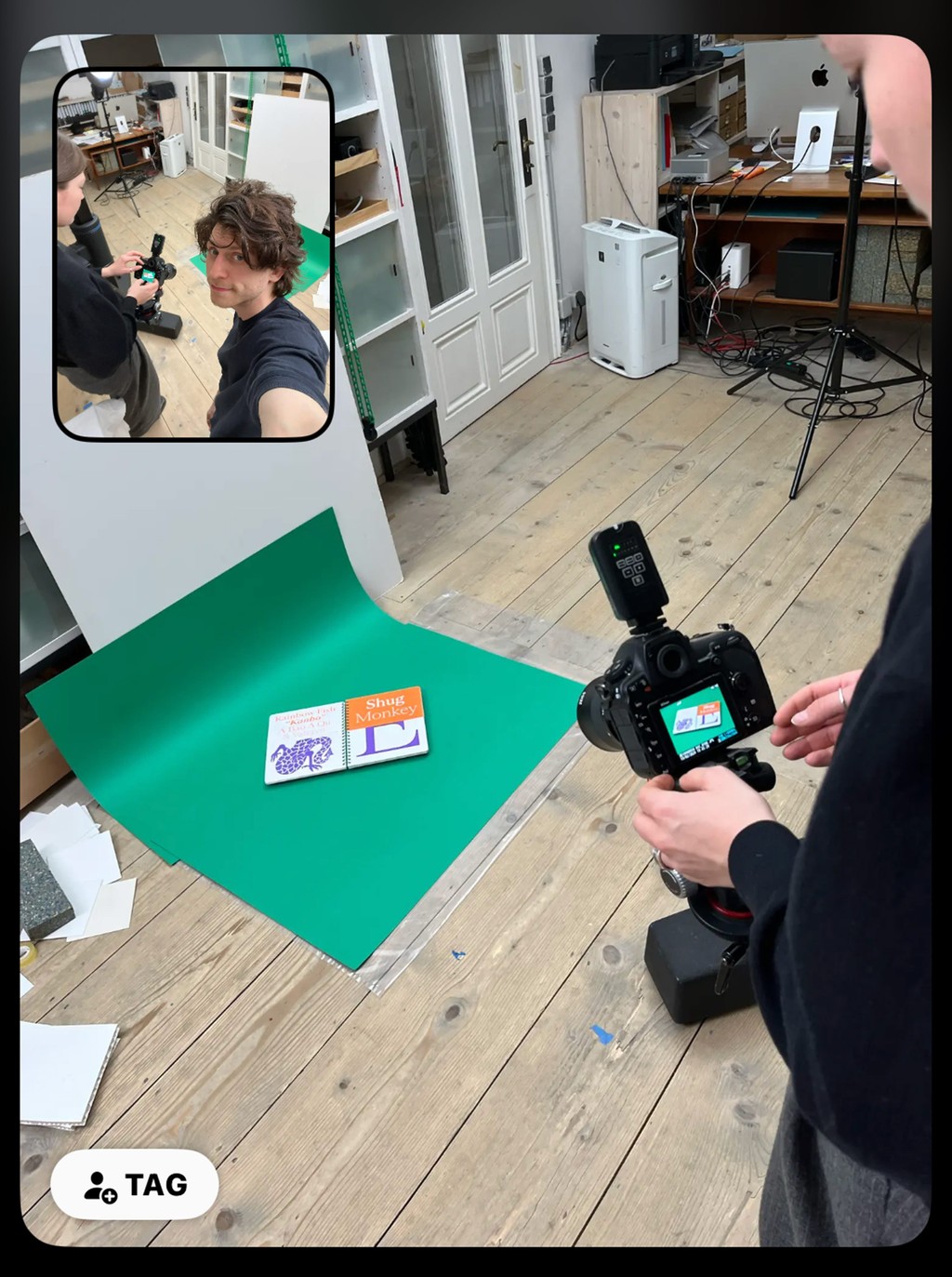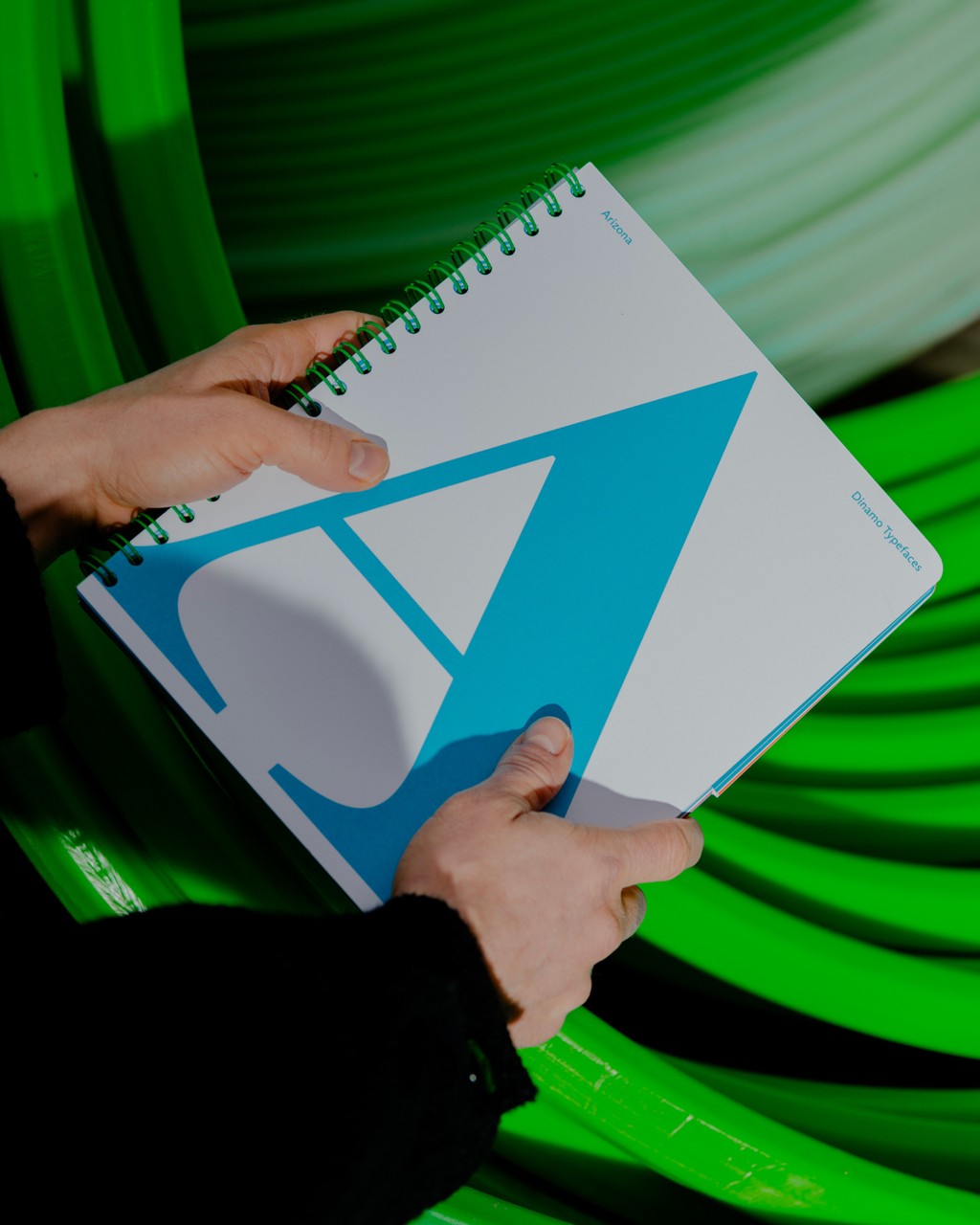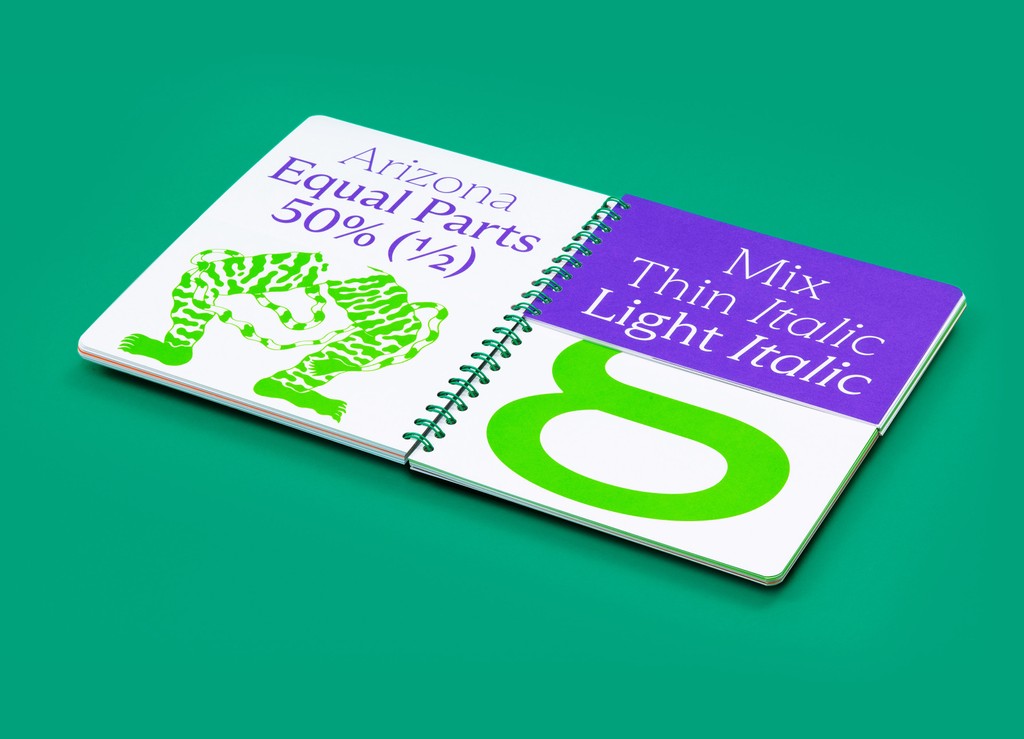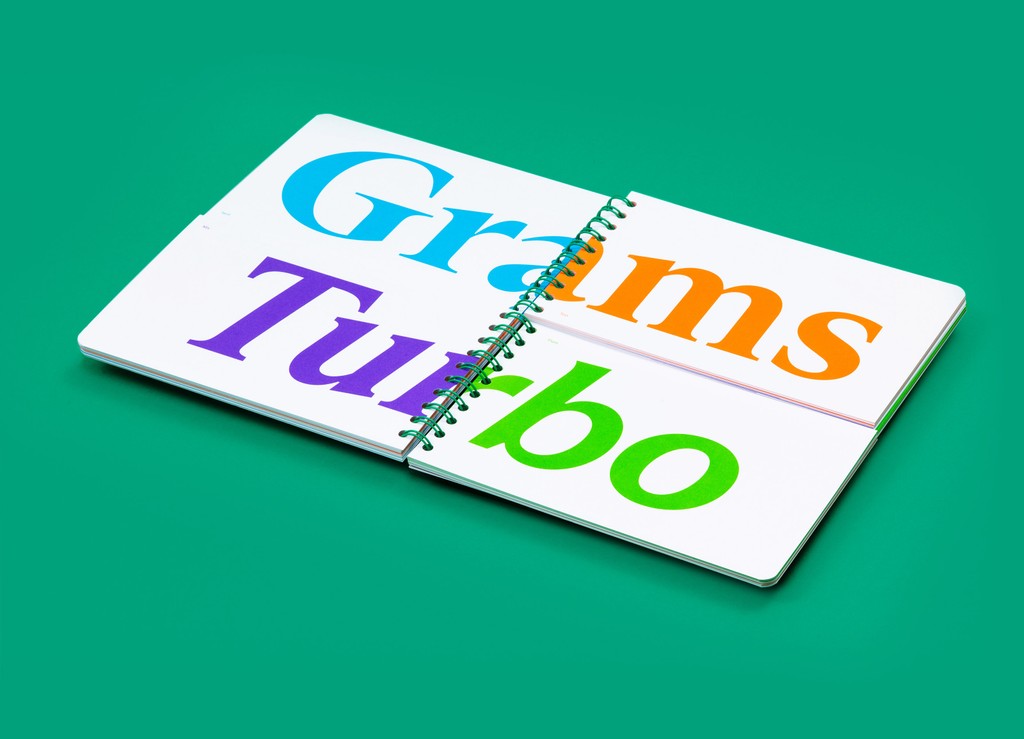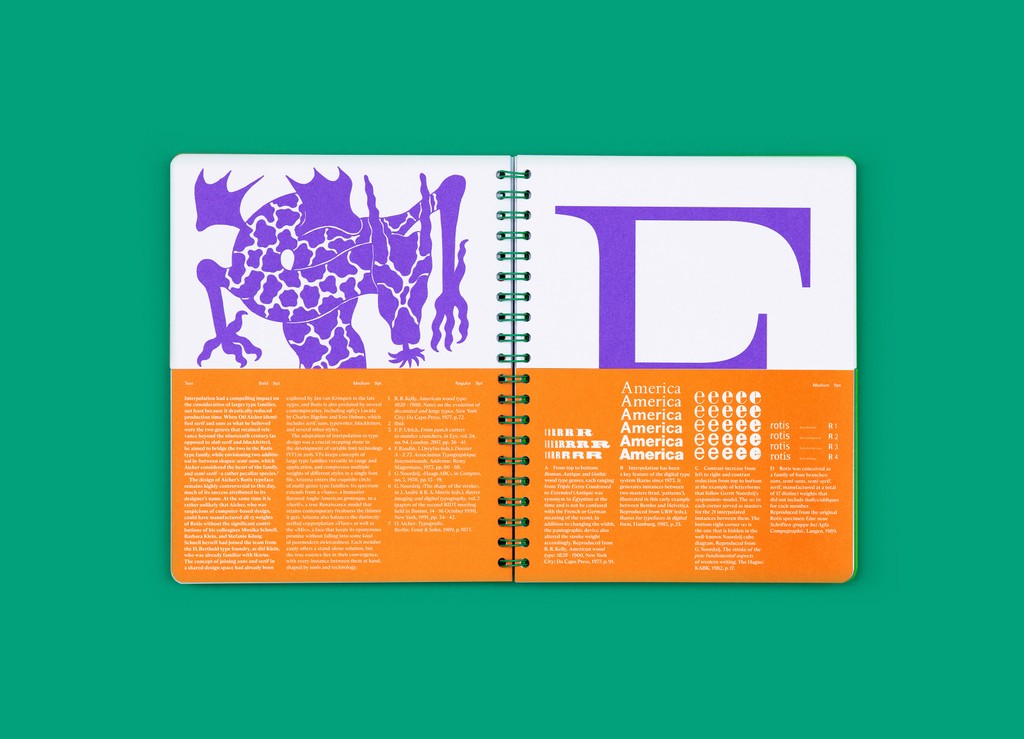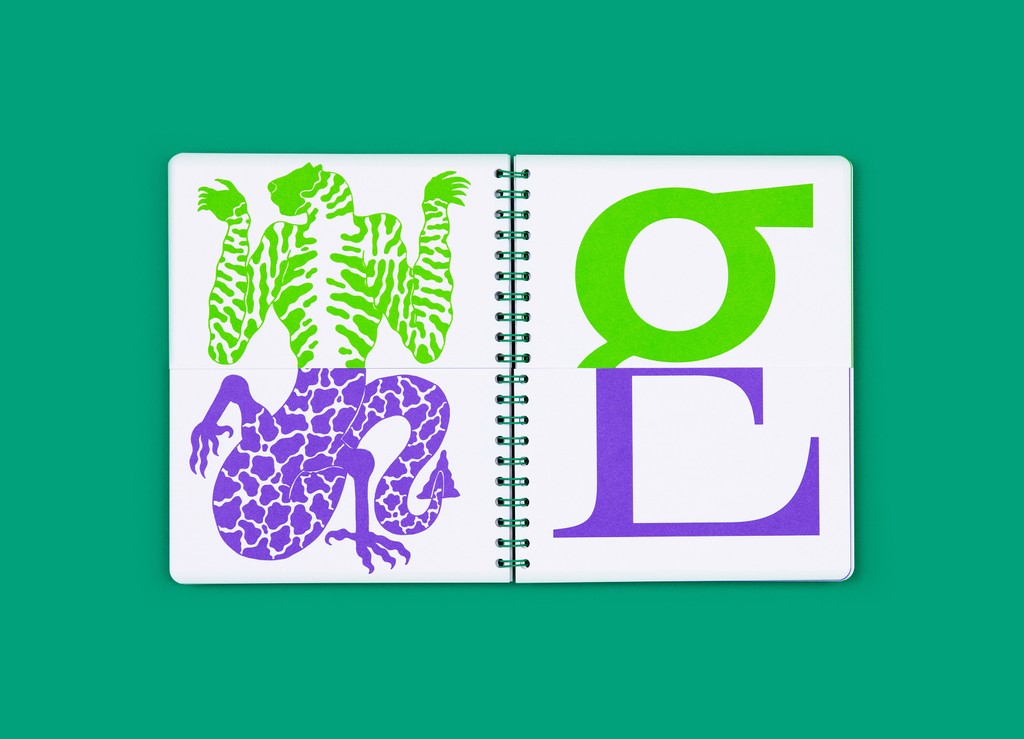
Introducing the Arizona Type Specimen 2
With our first edition of The Arizona Type Specimen sold out in just under a year, we’re releasing our second, sky blue/dirt brown edition today.
This five color, split-page specimen showcases ABC Arizona, the first ever sans-to-serif Variable Font that packages its five looks — Serif, Text, Mix, Flare, and Sans — into one single file.
Designed by Studio HanLi, the book mirrors Arizona’s countless combinations through its split structure. You can mix and match the half pages to discover the typeface’s vast system, just like monster picture books for kids.
An essay by type historian Ferdinand Ulrich places ABC Arizona in conversation with other sans to serif experiments from the past, including Otl Aicher’s Rotis. And Célestin’s new illustrations let you create your own frankenstein experiments by mix-matching animal bodies and legs.
Ferdinand's essay runs through the publication five times, each time with a different layout, color, and Arizona sub-family.
About the Designers
Elias Hanzer (originally hailing from Vienna) and Lucas Liccini (Berlin born and bred) co-founded Studio HanLi in 2018. Operating from the leafy backyards of the Schöneberger Crelle-Kiez, the partnership specializes in graphic design, typography, and bespoke typefaces. As of 2022, the studio also manages the platform HAL Typefaces, an independent vendor for digital fonts and typographic exploration. In 2021, Elias published his ABC Arizona typeface with us.
The making of in three parts: inspiration phase
Elias and Lukas at work
The leaves of Crelle-Kiez
3 mystery members of HAL